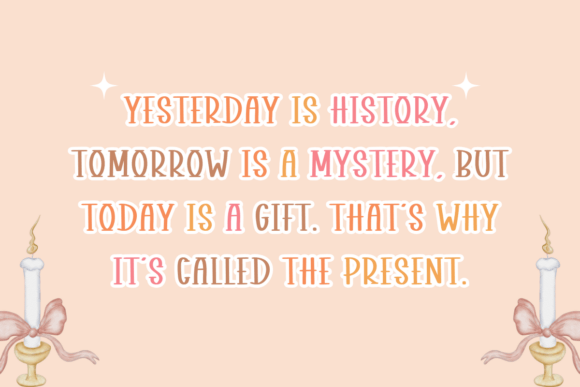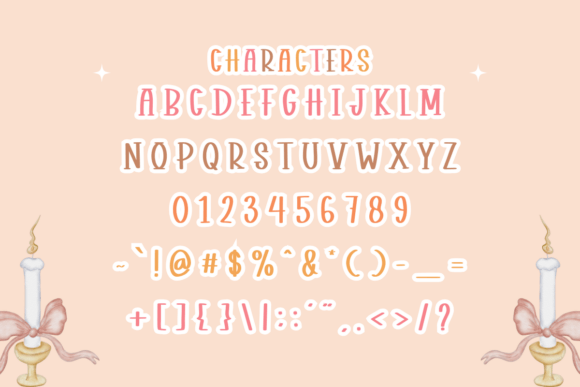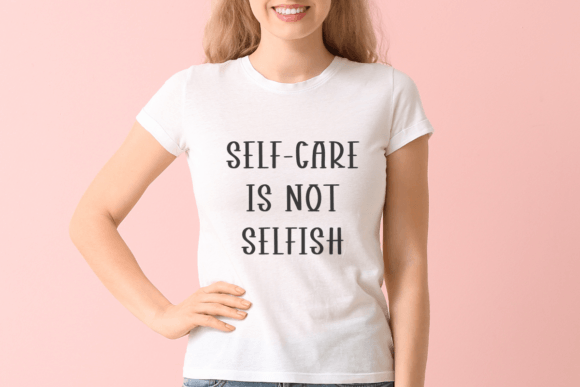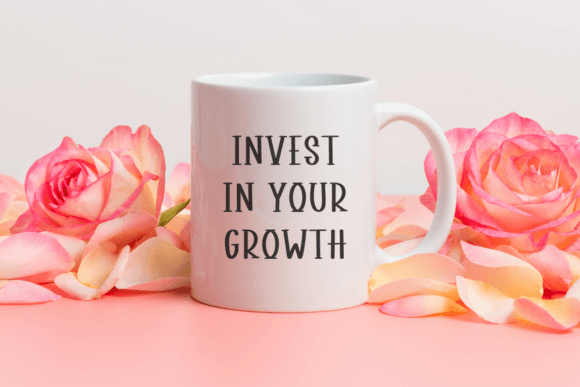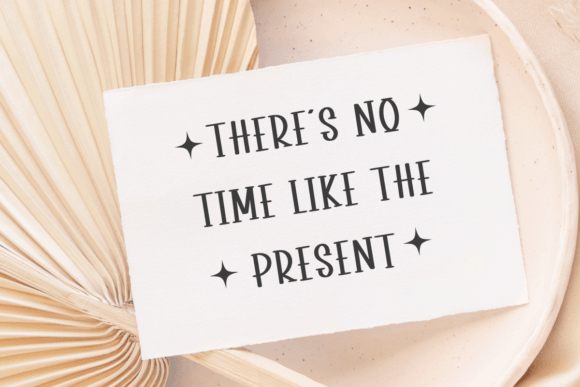
Candle Crafting Font: The Perfect Handwritten Slab Serif Font for Creative Projects
Are you a designer, crafter, or DIY enthusiast looking for a unique and charming font to add a personal touch to your creative projects? Look no further than the Candle Crafting font! This fun and cute handwritten slab serif font is perfect for a variety of applications, from journals and planners to cards, invitations, and scrapbooks.
What is Candle Crafting Font?
Candle Crafting is a beautifully designed handwritten slab serif font that exudes a sense of warmth and coziness. Its unique blend of modern and traditional elements makes it an excellent choice for anyone looking to add a touch of personality to their creative projects. The font’s slab serif design gives it a sturdy and dependable feel, while its handwritten nature adds a touch of whimsy and playfulness.
Candle Crafting font is perfect for a wide range of creative projects, including:
- Journals and planners: Add a personal touch to your journal or planner with the Candle Crafting font. Its clear and readable design makes it perfect for writing, note-taking, or creating to-do lists.
- Cards and invitations: Create beautiful and unique cards and invitations for special occasions, such as birthdays, weddings, or holidays.
- Scrapbooks: Add a touch of personality to your scrapbook pages with the Candle Crafting font. Its playful design makes it perfect for titling, captions, or journaling.
- Calendars and to-do lists: Create visually appealing calendars and to-do lists that are both functional and decorative.
- Notebooks and stationery: Add a personal touch to your notebooks and stationery with the Candle Crafting font. Its unique design makes it perfect for creating custom notebooks, journals, or stationery sets.
Great for KDP Interiors and Templates
Candle Crafting font is also an excellent choice for KDP (Kindle Direct Publishing) interiors and templates. Its clear and readable design makes it perfect for creating professional-looking eBooks, journals, and planners. With the Candle Crafting font, you can create visually appealing and engaging interiors that will make your KDP publications stand out.
Why Choose Candle Crafting Font?
So, why choose the Candle Crafting font for your creative projects? Here are just a few reasons:
- Unique and charming design: The Candle Crafting font has a unique and charming design that will add a personal touch to your creative projects.
- Versatile: The font is versatile and can be used for a wide range of applications, from journals and planners to cards and invitations.
- Easy to read: The font is clear and easy to read, making it perfect for writing, note-taking, or creating to-do lists.
- Perfect for KDP interiors and templates: The font is an excellent choice for KDP interiors and templates, creating professional-looking eBooks, journals, and planners.
Tips for Using Candle Crafting Font
Here are a few tips for using the Candle Crafting font in your creative projects:
- Experiment with different sizes: Experiment with different font sizes to find the perfect size for your project.
- Pair with other fonts: Pair the Candle Crafting font with other fonts to create a unique and visually appealing design.
- Use for headings and titles: Use the Candle Crafting font for headings and titles to add a touch of personality to your project.
- Use for body text: Use the Candle Crafting font for body text to create a clear and readable design.
In conclusion, the Candle Crafting font is a fun and cute handwritten slab serif font that is perfect for a wide range of creative projects. Its unique and charming design makes it an excellent choice for designers, crafters, and DIY enthusiasts looking to add a personal touch to their projects. With its versatility, ease of use, and clear and readable design, the Candle Crafting font is an excellent addition to any creative project.